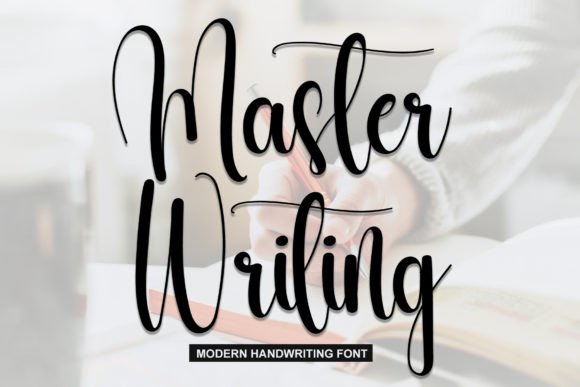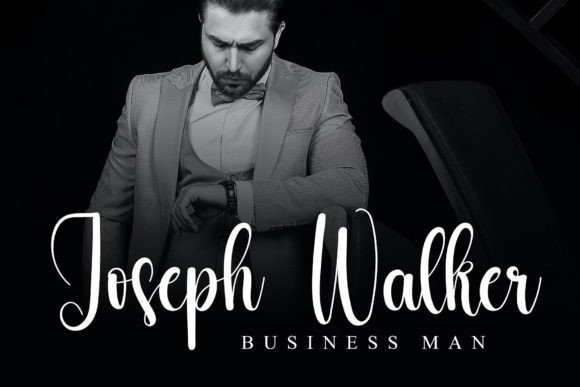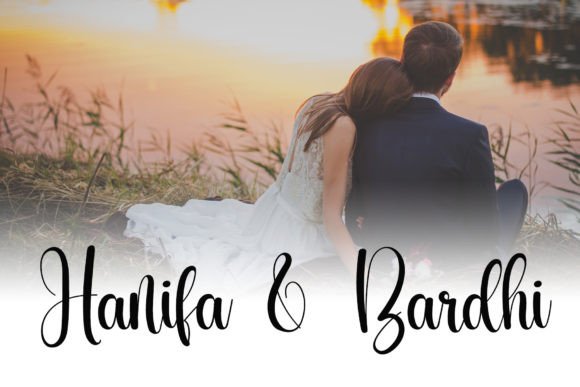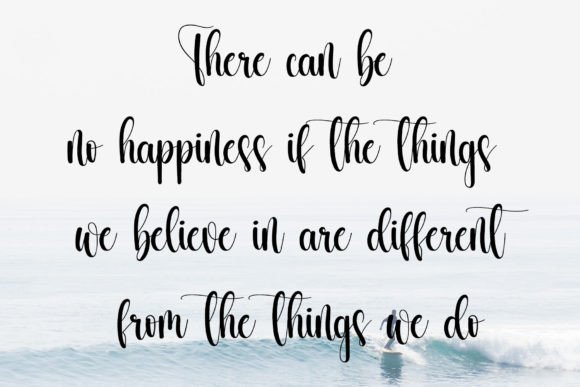
Master Writing Font
About the Master Writing Font
The Master Writing Font is here to transform your projects with its distinctive character and style. Master Writing is a stylish handwritten font with a contemporary atmosphere and impeccable form, inspired by timeless classic calligraphy. Balanced and varied, this font was designed to enhance the beauty of your projects.
Master Writing’s elegant, yet contemporary feel makes it ideal for headlines, short text blocks in branding materials, or stylish invitations. Its refined nature lends itself well to projects requiring a touch of sophistication, such as high-end product packaging or sophisticated marketing collateral. However, its stylistic flourishes are less suitable for body text or lengthy passages, and would be unsuitable for UI applications demanding high readability.
Pairing Master Writing with a clean sans-serif like Montserrat for body text offers a strong contrast and excellent readability. For a warmer feel, consider pairing it with a serif font like Garamond. If a more playful design is desired, a geometric sans-serif like Futura could offer an intriguing counterpoint.
The overall personality of Master Writing is sophisticated and refined, conveying a sense of timeless elegance without sacrificing modernity. It’s a versatile choice for projects requiring a touch of class and visual interest.
Master Writing Font Usage Examples
Master Writing Font Example